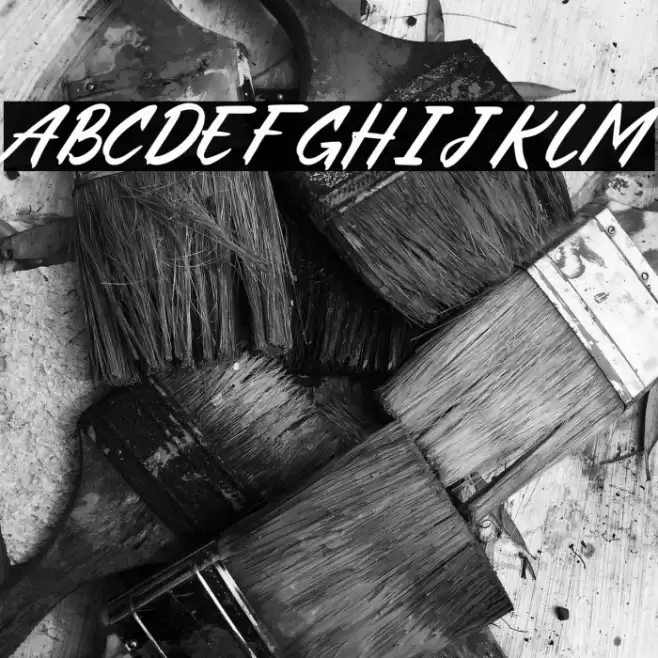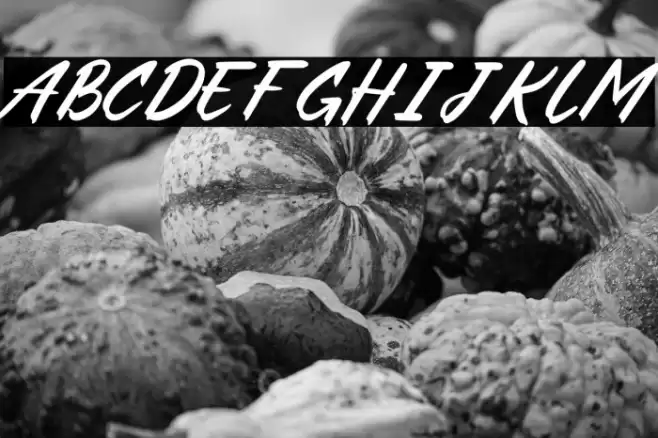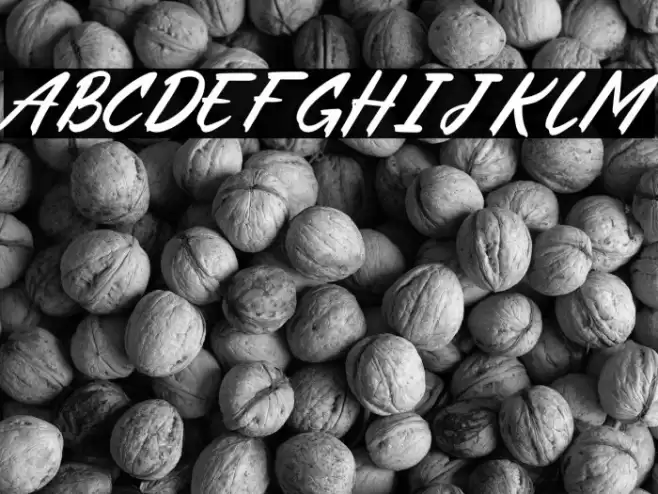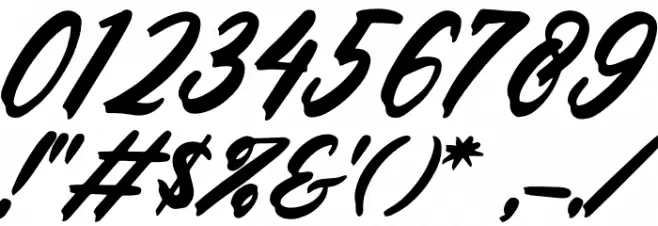
Fake Boss Font
Fake Boss Description
This font features a bold, cursive style with a dynamic and energetic flow. The characters are slightly slanted, giving a sense of movement and fluidity. The strokes are thick and consistent, providing a strong visual impact. The uppercase letters are tall and commanding, while the lowercase letters maintain a harmonious balance with their slightly rounded forms. Numbers and special characters are designed with the same boldness, ensuring consistency across all elements. This font exudes a sense of confidence and creativity, making it suitable for projects that require a personal touch.
A bold, cursive font with dynamic and energetic strokes from Uncategorized fonts.
- Proposed Projects: Ideal for branding, logos, posters, and creative projects that require a personal and artistic touch.